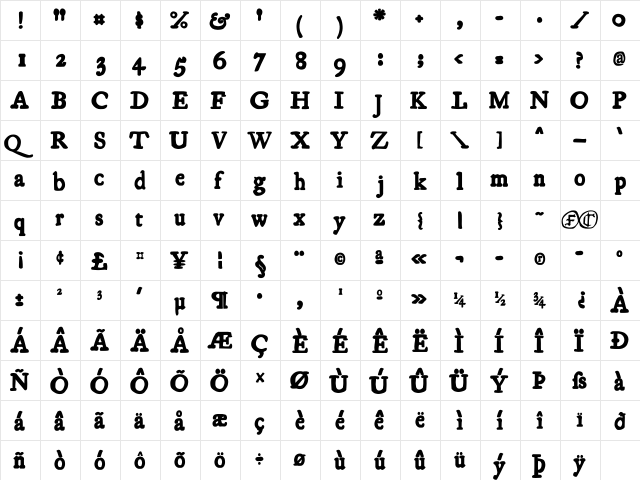
Essays1743 Bold
| Designer | Based on the typeface in a 1743 English translation of the essays of Montaigne. PostScript/TrueType font designed by John Stracke. |
Design Context for Essays1743 Typeface
Essays1743 takes a measured approach to typography — its balanced proportions and neutral character make it a reliable workhorse for both digital and print work. The heavy weight commands attention and anchors typographic hierarchies.